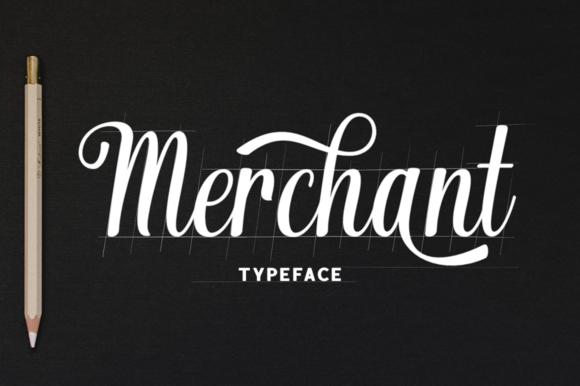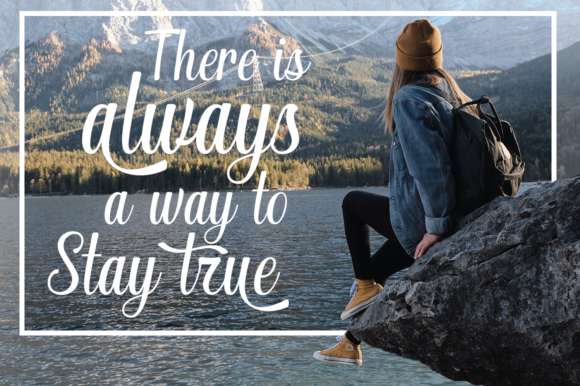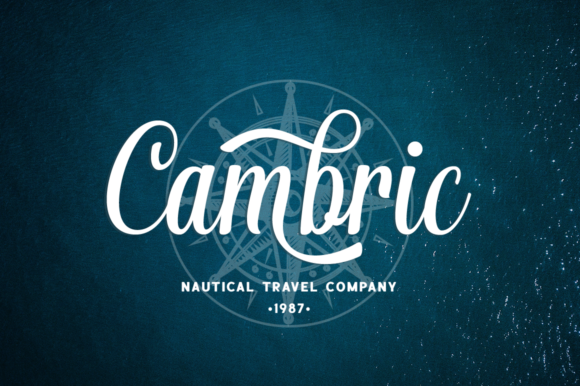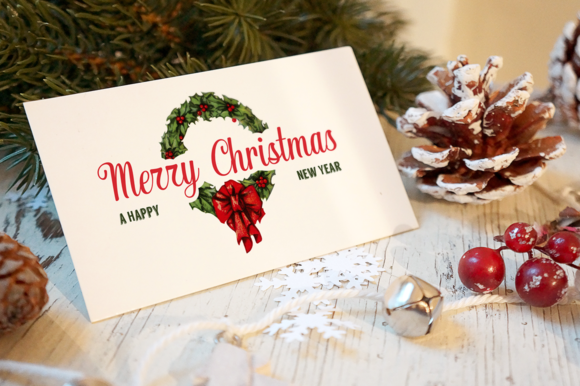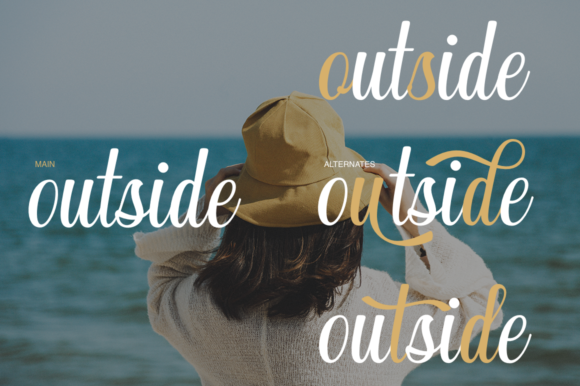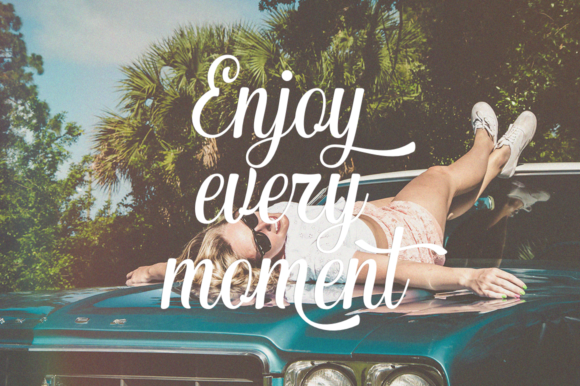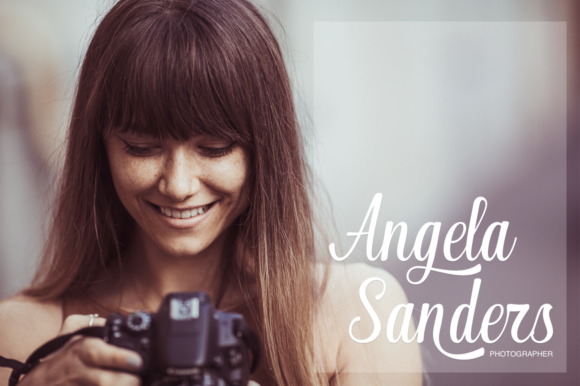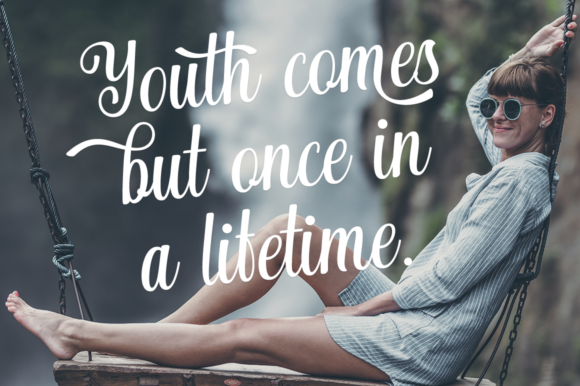
Merchant Font
About Merchant Font
The Merchant is a smooth legible script.
Because of it’s classical, elegant look, it;s great for branding and marketing.